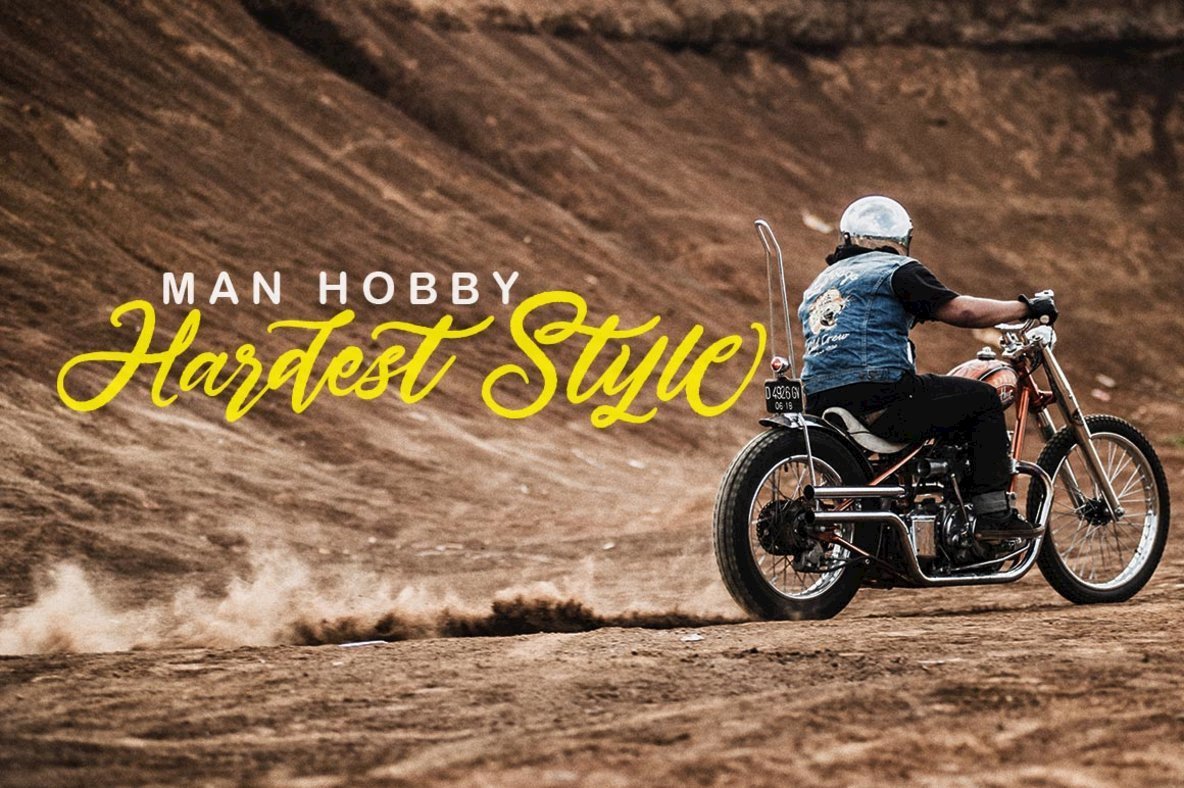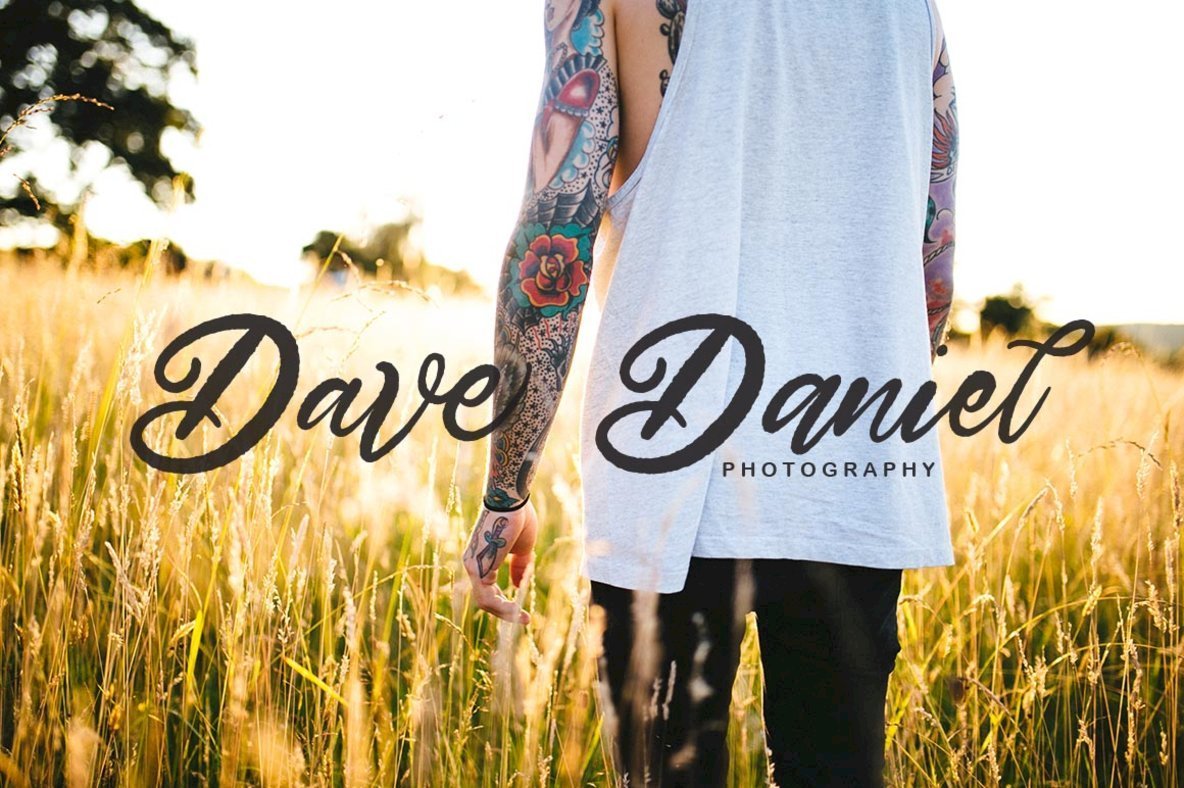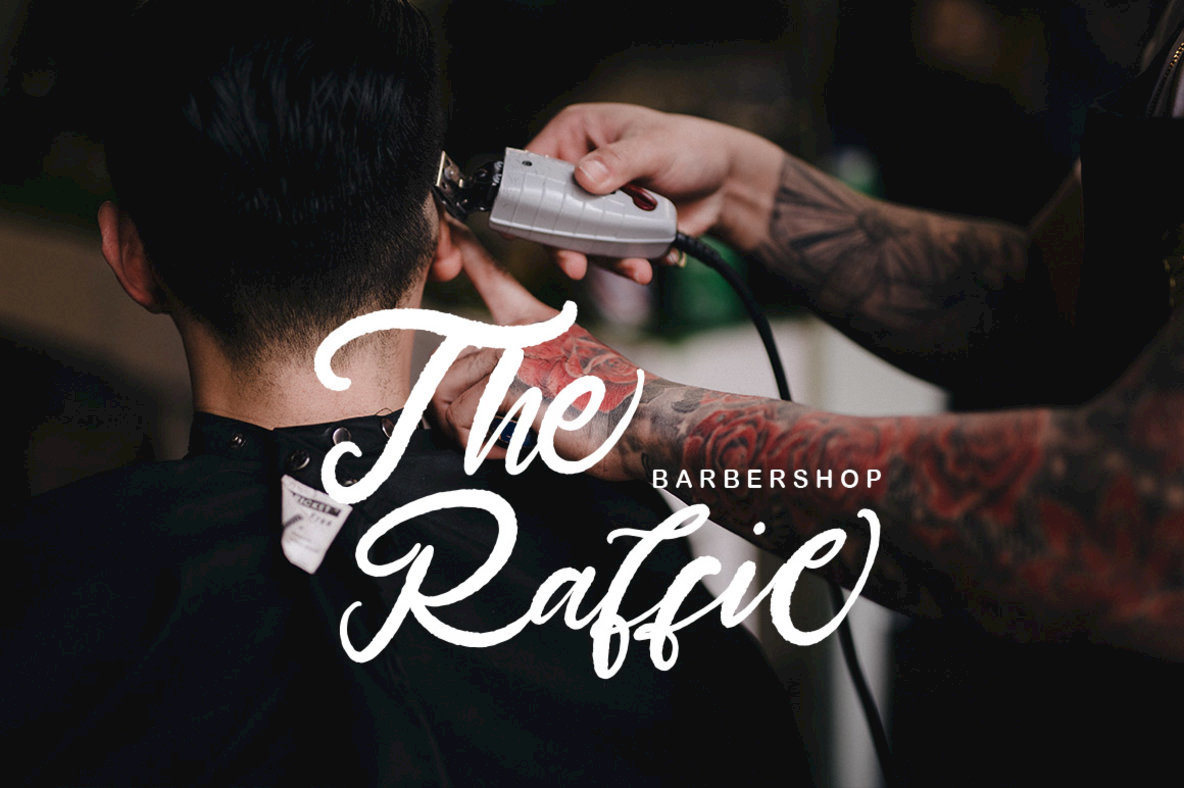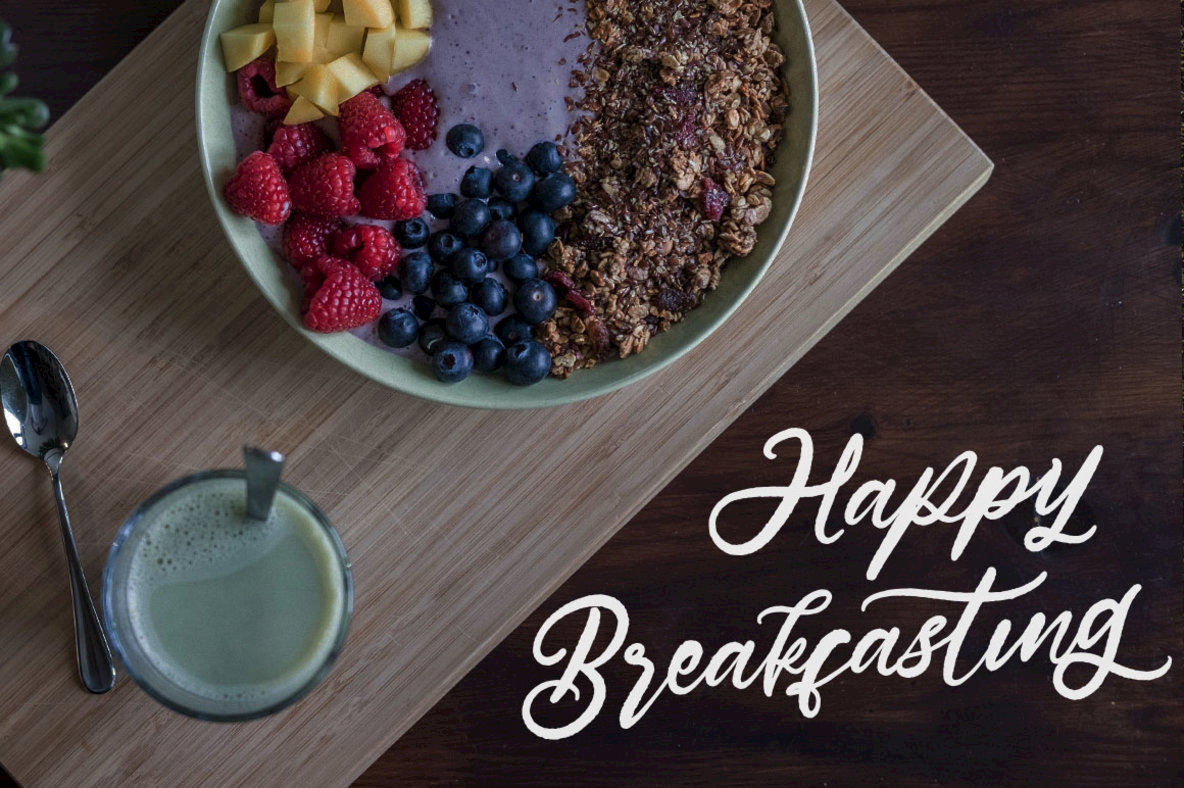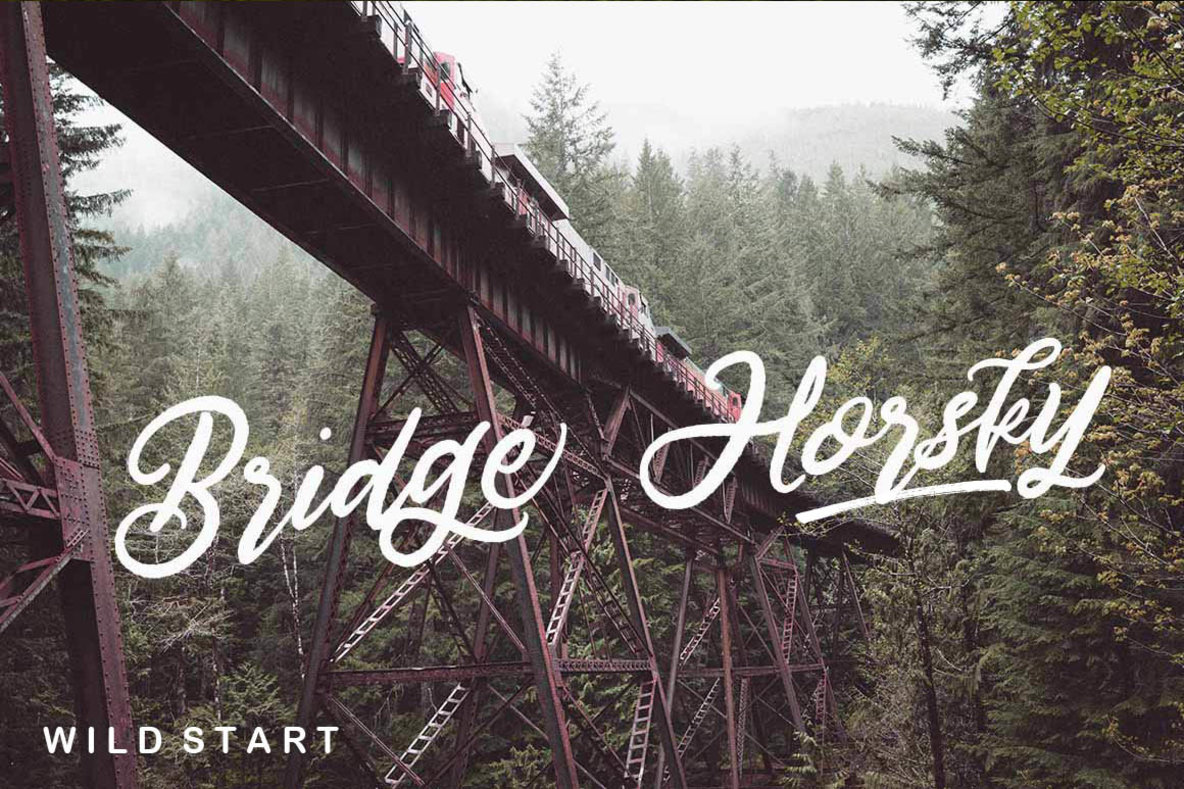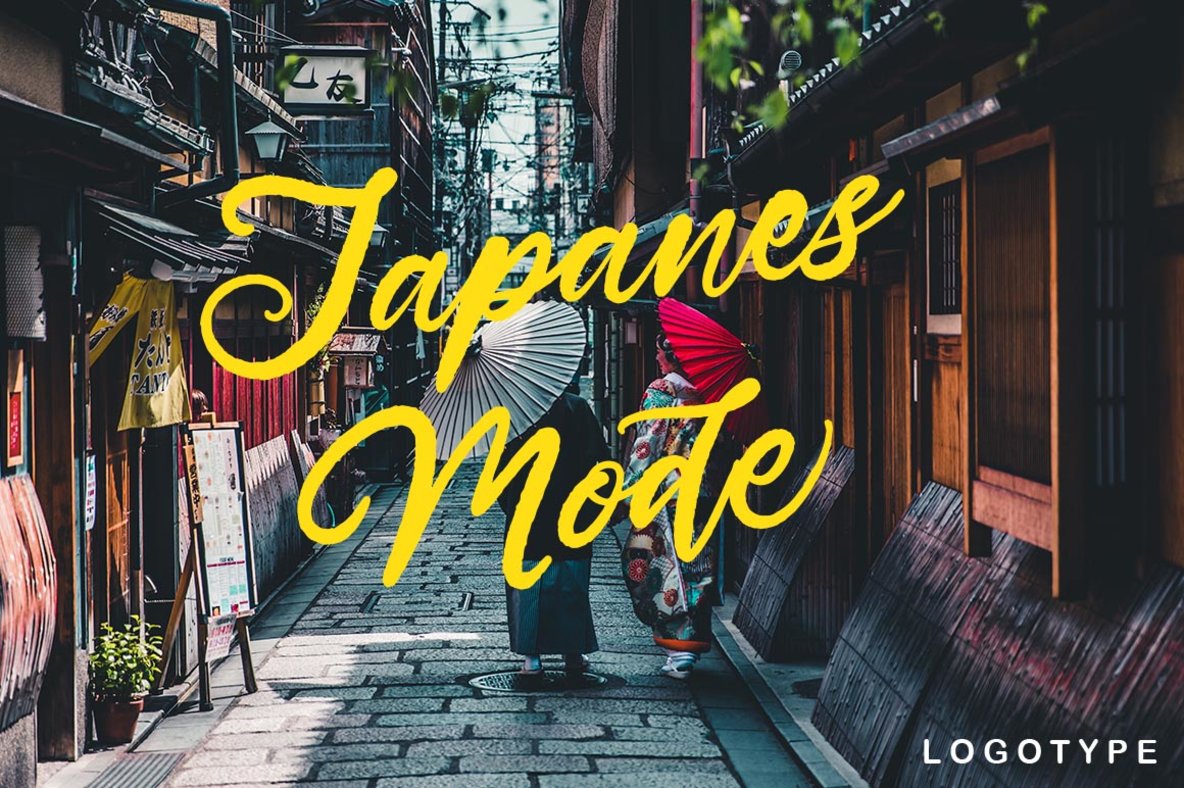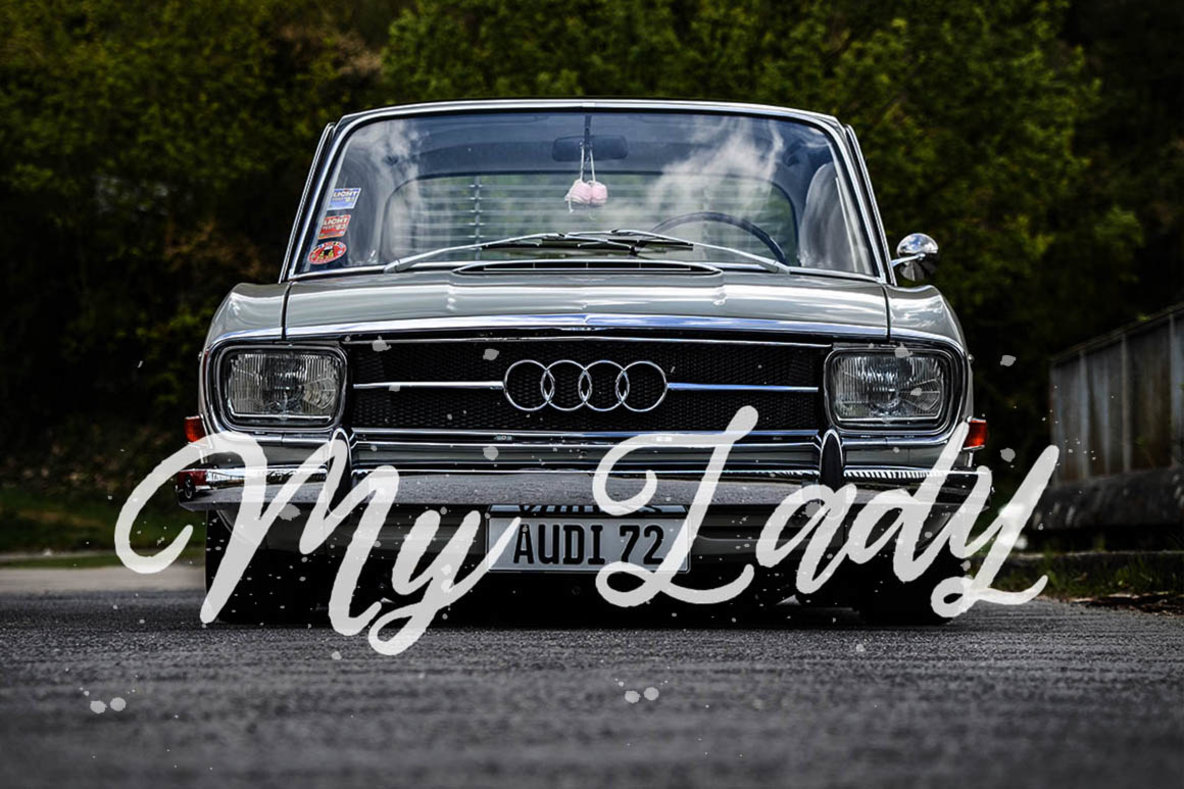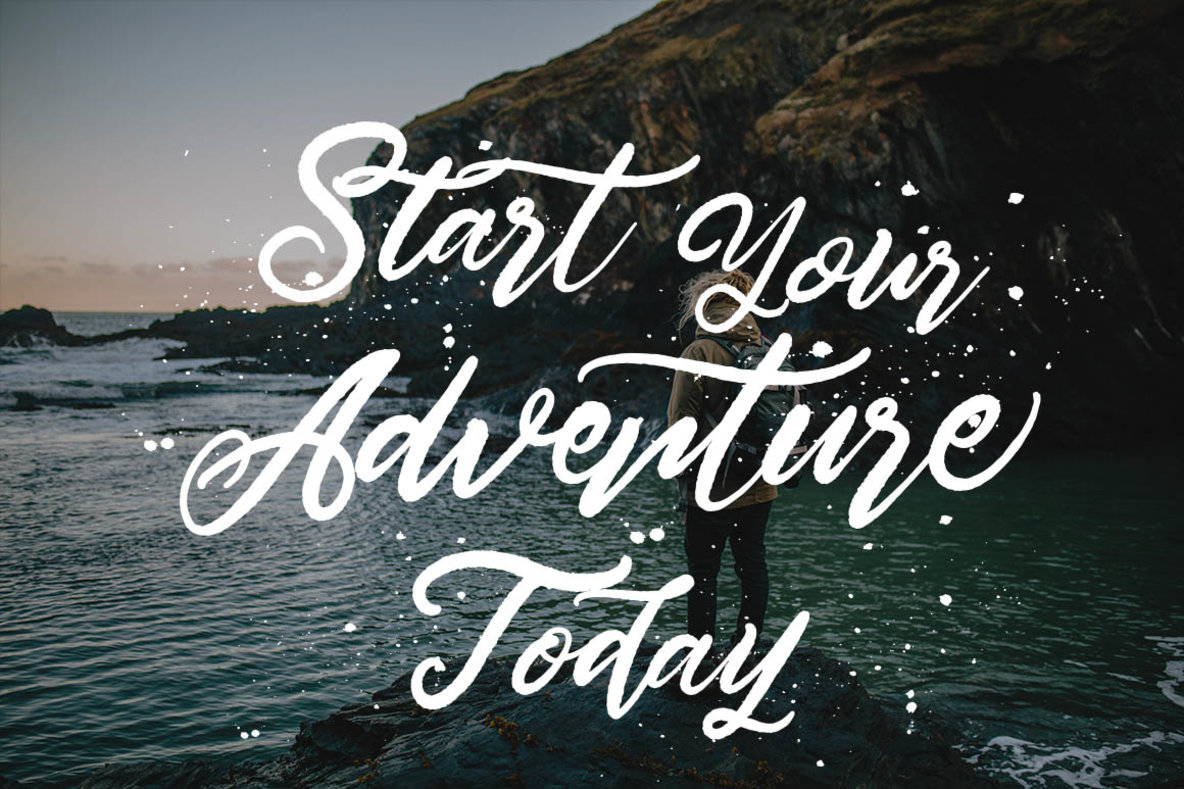
Hardest Style Font
Embrace the charm of handmade design with Hardest Style, a brush font crafted to bring your projects a unique blend of elegance and functionality. Created with the aim of facilitating effortless hand-lettering, this font seamlessly blends style and efficiency. Hardest Style presents a comprehensive array of characters including upper and lowercase letters, a substantial set of punctuation marks, and numerals. It ensures compatibility with international languages. The font includes stylistic alternates for notable lowercase characters, accessible through Adobe Illustrator’s Glyphs panel or Photoshop’s OpenType menu.Hardest Style: A Versatile Brush Font